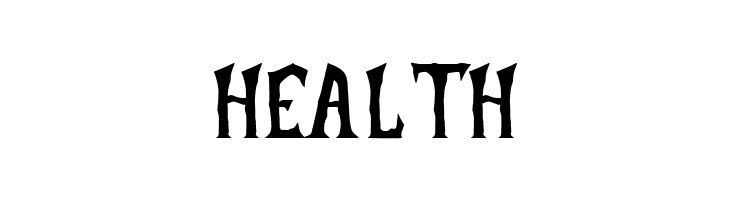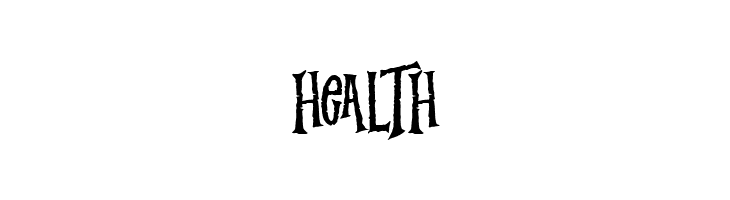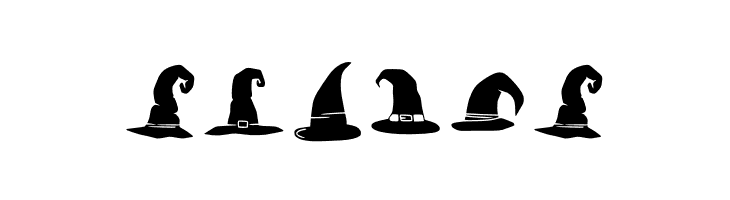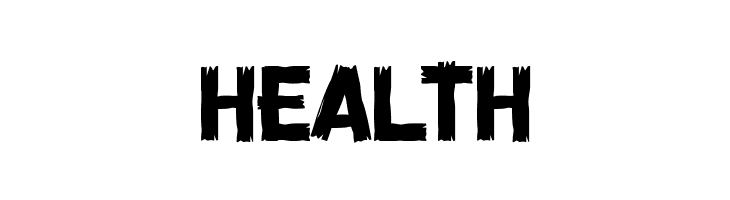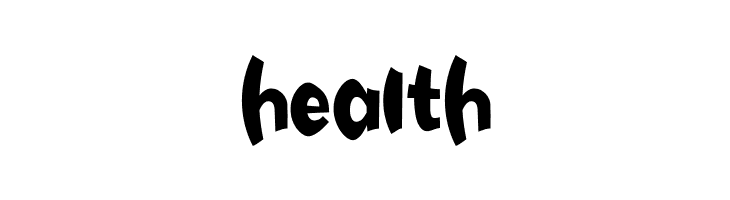
( Fonts by Gilang Ternadho )
A bold, jagged font with a spooky, distressed appearance.
( Fonts by Maulana Creative )
A bold, gothic-inspired font with sharp, angular edges and a distressed look.
( Fonts by Misti's Fonts )
A playful and quirky font with exaggerated curves and uneven strokes.
( Fonts by Andi Moz )
A bold, distressed font with jagged edges and a wild, hand-drawn appearance.
( Fonts by Muhammad Yafinuha )
A playful display font using witch hats as characters.
( Fonts by Wasabib Studio )
A spooky, jagged font with a playful, hand-drawn style.